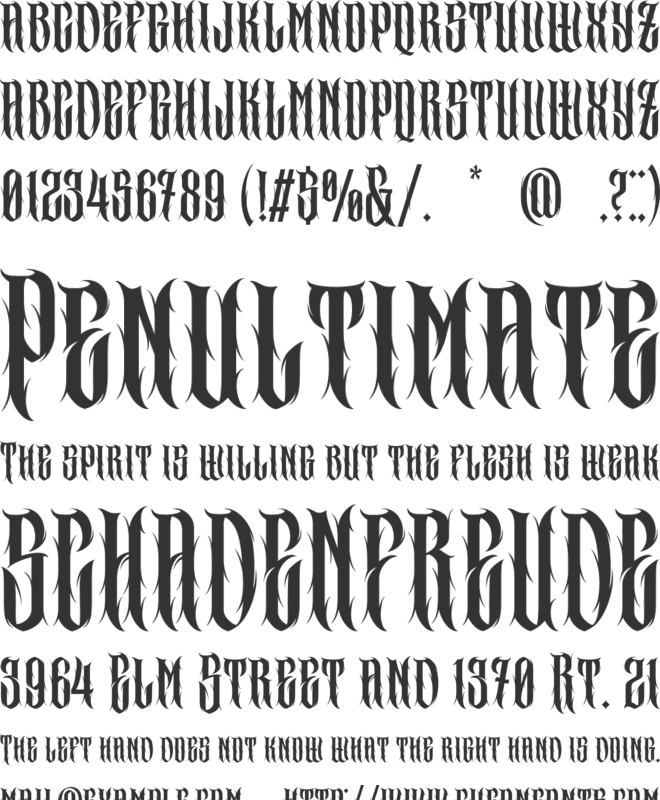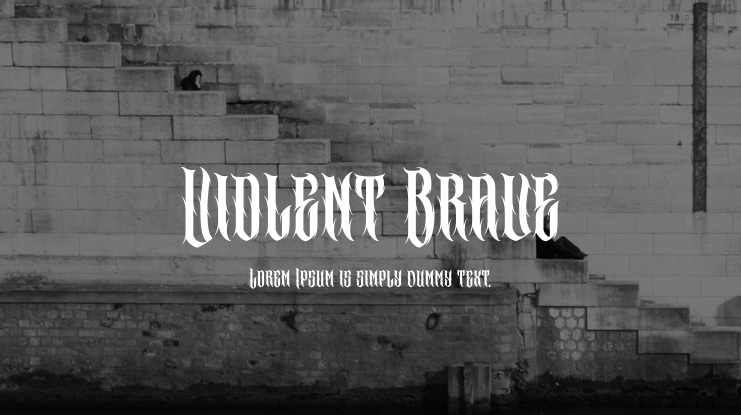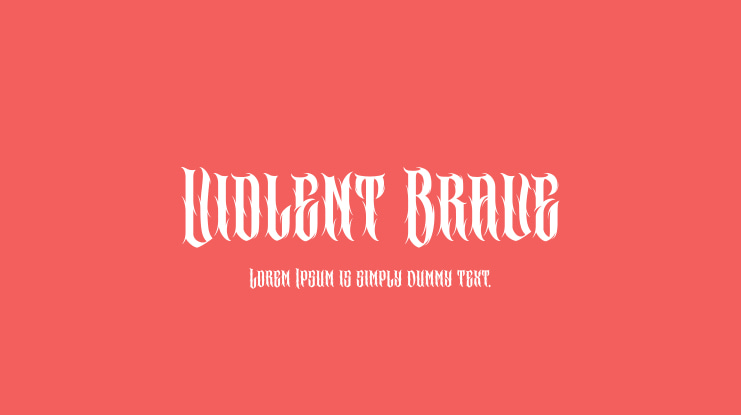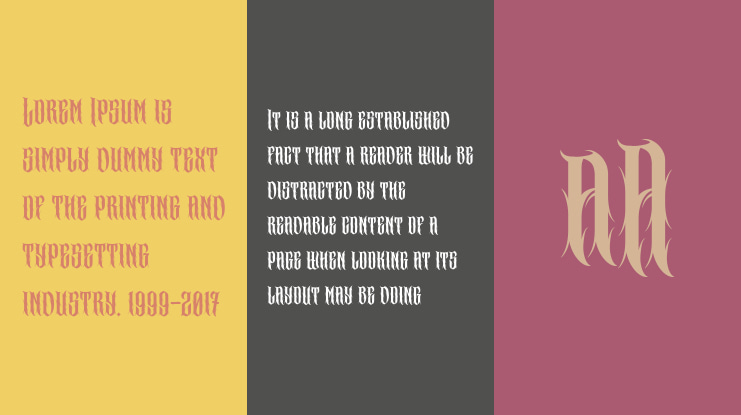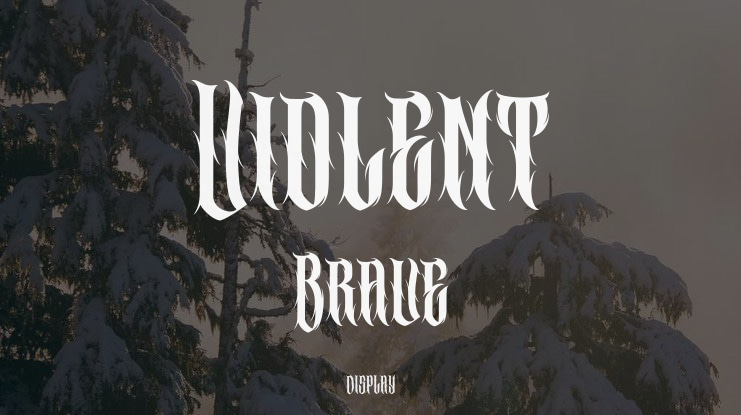
Violent Brave Font
Introducing the "Violent Brave Brutalism Typeface" - a cutting-edge font that seamlessly combines modern aesthetics with a fearless and commanding metal-inspired concept. This remarkable typography is designed for individuals who want to make a strong visual statement.